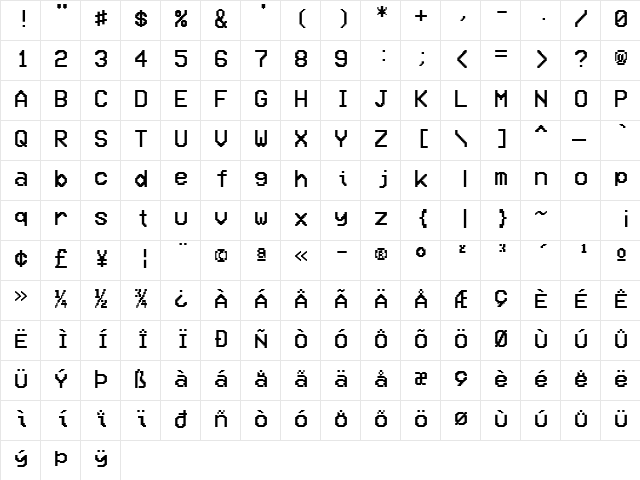
VCR OSD Mono Regular
Design Context for VCR OSD Mono Typeface
VCR OSD Mono uses fixed-width spacing throughout, giving it the structured, systematic character associated with coding environments and technical documentation.
A natural fit for code editors, technical documentation, developer-focused branding, and terminal-inspired UI.
Pro Tip: Pair VCR OSD Mono with a proportional sans for UI contexts where code-style labels and regular body copy need to coexist.